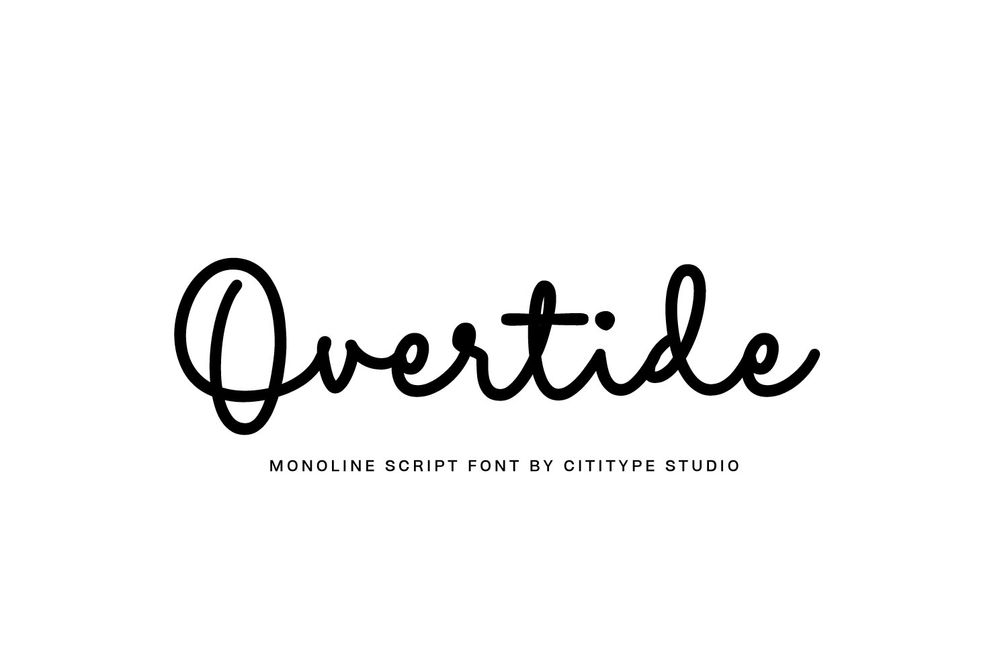
- Overtide
Introducing Overtide, a monoline script font that balances elegance with versatility. Designed with smooth, continuous lines and carefully crafted curves, Overtide offers a subtle sophistication that makes it well-suited for various creative applications. Whether you’re looking to enhance a brand name, create a signature, or design a logo, Overtide’s consistent stroke width and graceful flow provide a timeless touch.
Ideal for writing quotes and headers, Overtide adds a hint of personality without overpowering the message. Its clean and expressive style is also perfect for craft printing, where clarity and aesthetics are key. Whether as part of a minimalist design or as a focal point, Overtide offers a polished, understated charm to any project.